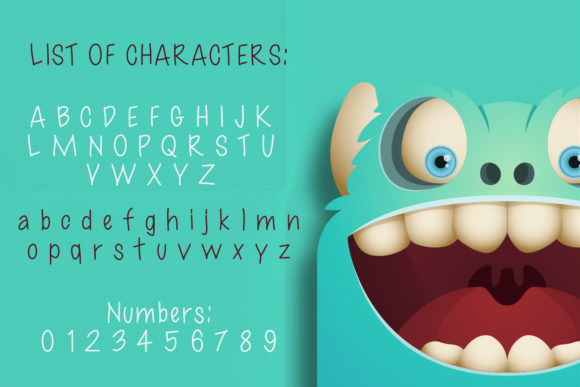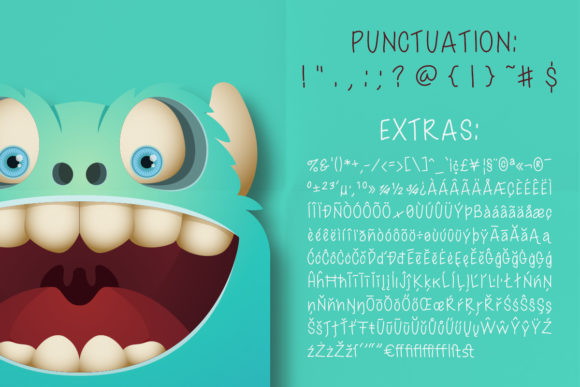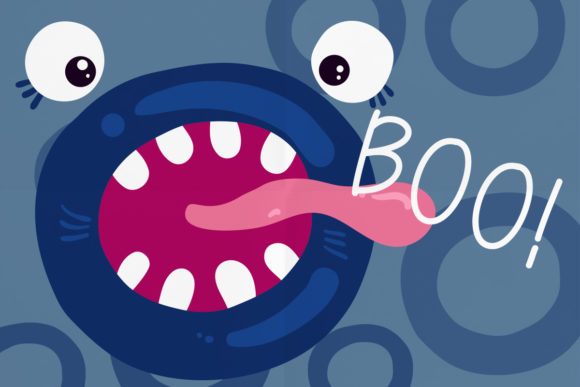
Introduction to Sassy Font
Sassy is a cute handwritten font.
It maintains its classy calligraphic influences while feeling contemporary and fresh This versatility will appeal to a wide range of crafty ideas, from letterheads and titles, to stationery.
Key Features of Sassy Font
Why Choose Sassy Font?